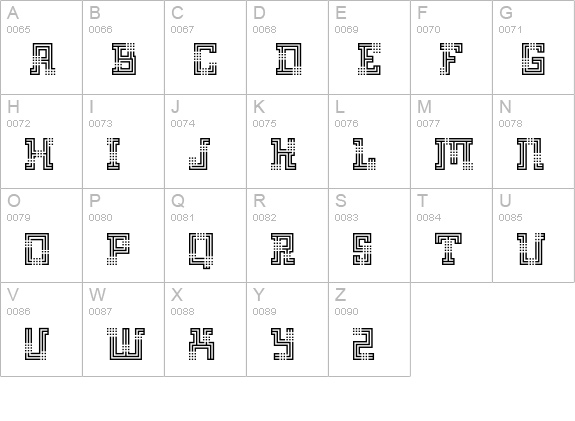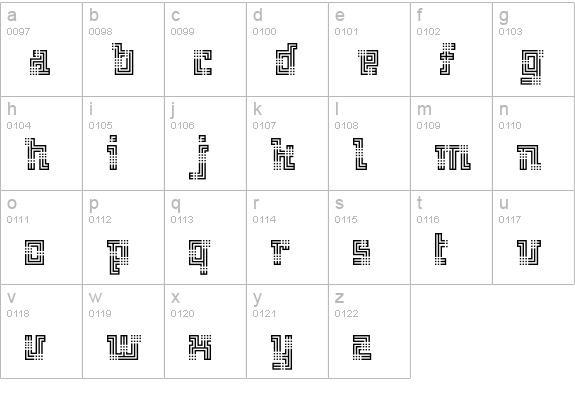
Introducing Archian-BoogieWoogie font, a vibrant and playful typeface that exudes energy and dynamism. Inspired by the lively rhythms of the boogie-woogie music genre, this font is characterized by its bold strokes and whimsical letterforms, perfect for adding a touch of fun and excitement to your designs. Designed with creativity in mind, Archian-BoogieWoogie font is ideal for projects that require a unique and eye-catching aesthetic, such as posters, flyers, logos, and more. Its distinctive style will make your text stand out and grab the attention of viewers. Best of all, Archian-BoogieWoogie font is completely free to download at FontsMarket.com. Whether you're a professional designer or a hobbyist looking to add a playful twist to your projects, this font is a must-have addition to your collection. Embrace the lively spirit of boogie-woogie music with Archian-BoogieWoogie font and let your creativity shine!